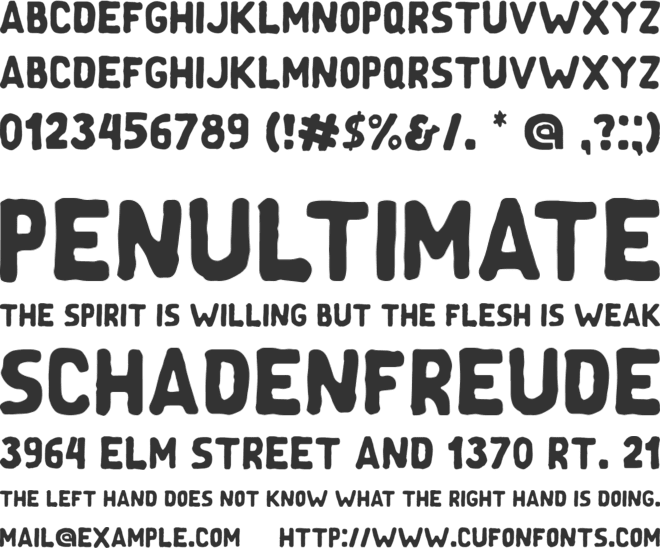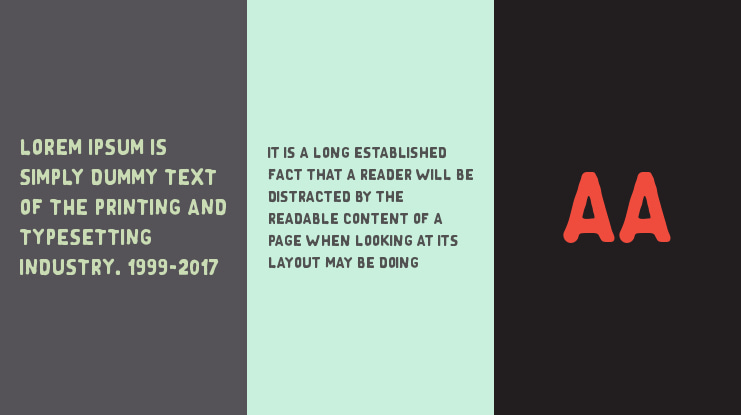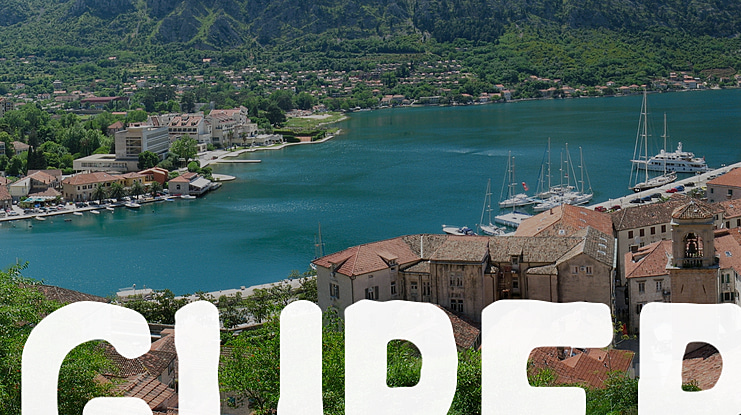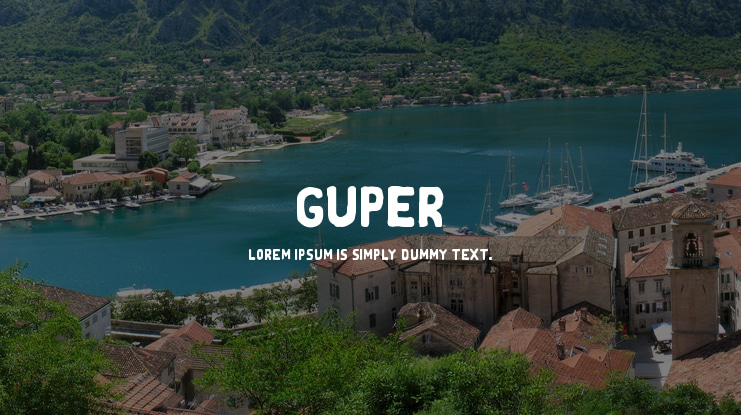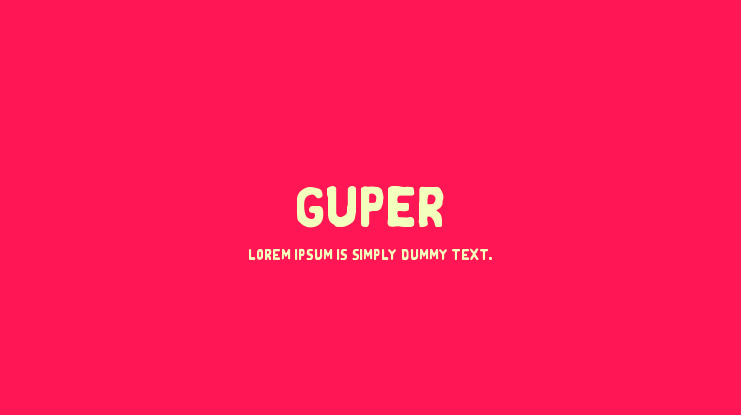
Guper Font
Guper Sans is a handcrafted vintage typeface inspired by badges, labels, vintage logo designs and retro typography designs. Make your traditional old-fashioned design with Guper Sans. This one perfectly suitable for logo designs, t-shirt prints, motivational and inspirational quotes, typography design, cards, flyers, event posters and more more.